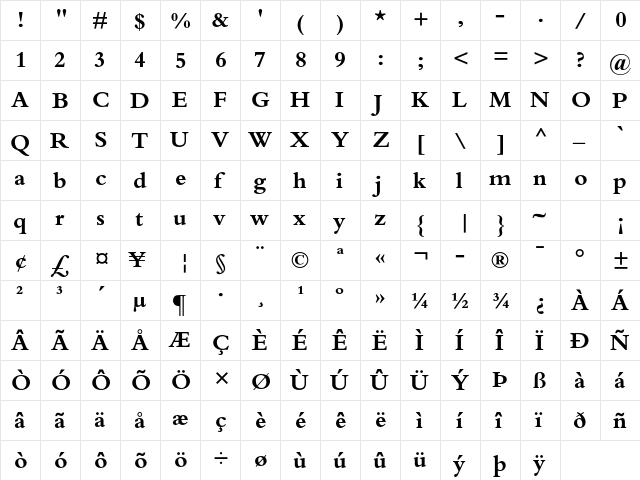
Bembo Std Bold
| Designer | Stanley Morison, Monotype Staff |
Design Context for Bembo Std Typeface
Bembo Std is a composed and adaptable typeface that performs quietly and consistently across a wide range of design contexts. The heavy weight commands attention and anchors typographic hierarchies.